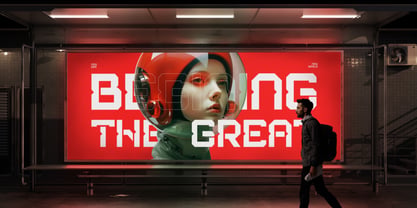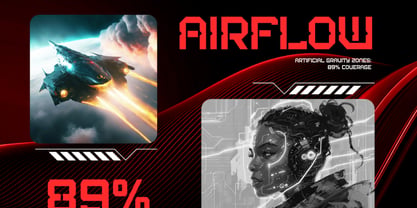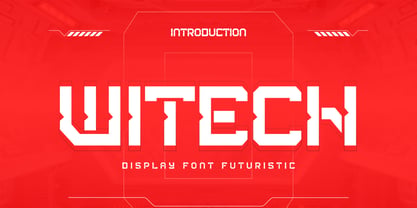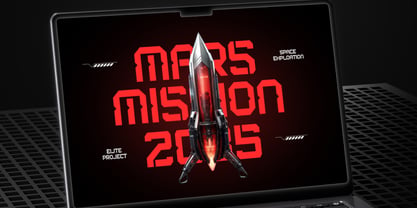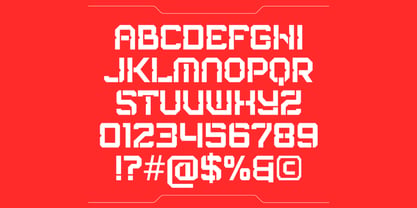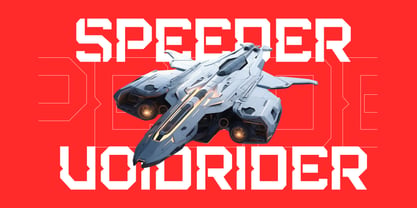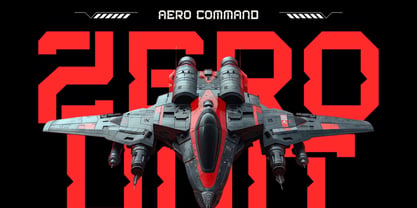
Witech
by Brandearth
The Witech Font Family was designed by Moch Rasjid Wiyono and published by Brandearth. Witech contains 1 styles. More about this family
Witech is a bold futuristic display font designed with sharp geometric cuts, strong angular construction, and a powerful sci-fi presence. Its structured letterforms feature dynamic corner trims and industrial-inspired detailing, creating a high-impact visual identity perfect for technology-driven and gaming projects. Witech is highly relevant for projects that require a strong technological and futuristic presence. Ideal for gaming brands, esports teams, sci-fi movie posters, tech startups, AI platforms, robotics projects, digital dashboards, YouTube thumbnails, streaming overlays, and product launch campaigns.
Designers: Moch Rasjid Wiyono
Foundry: Brandearth